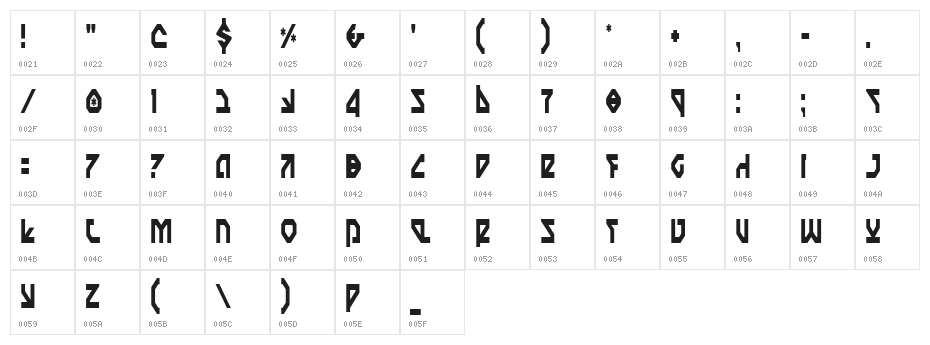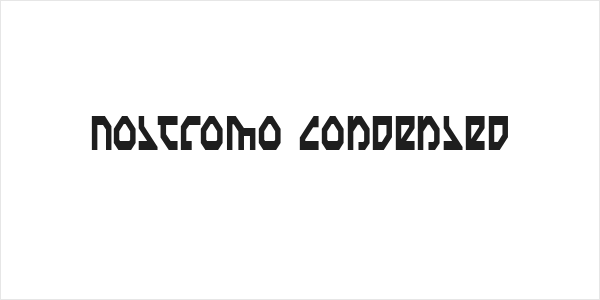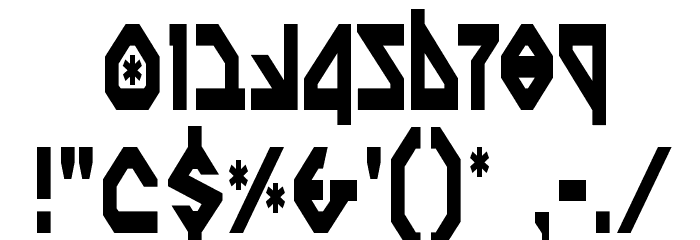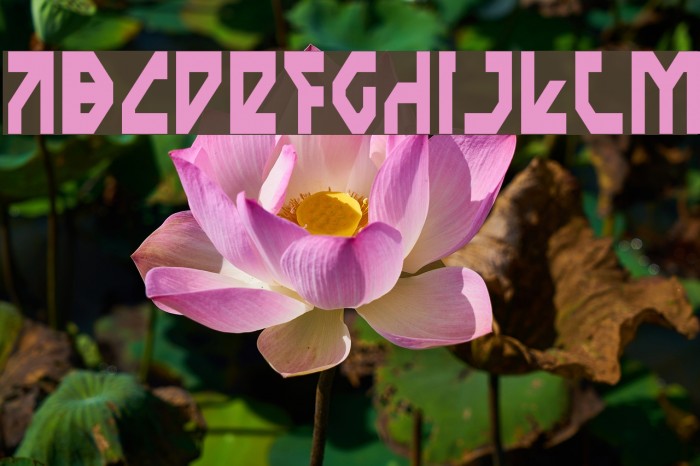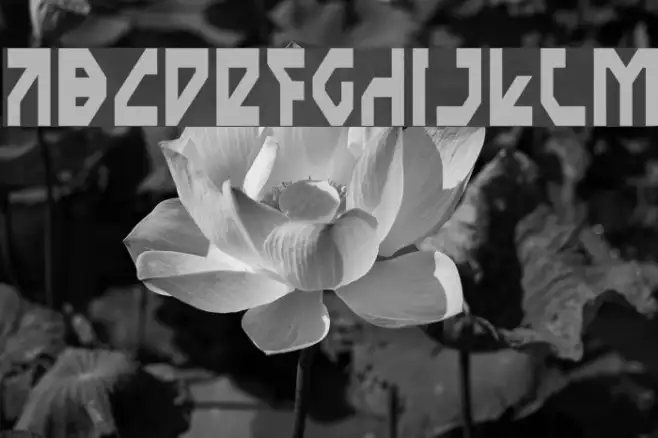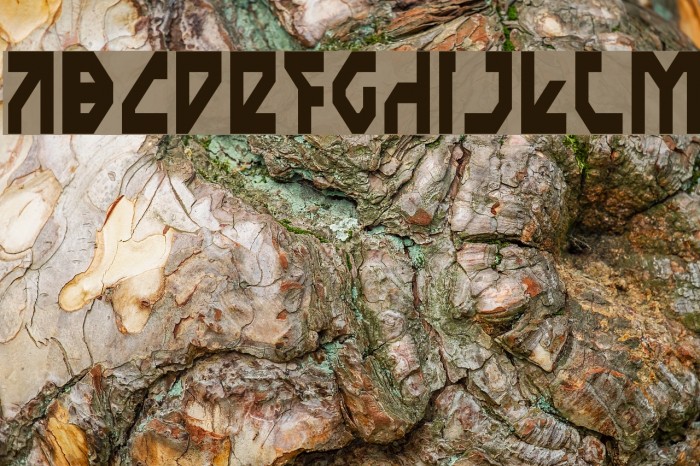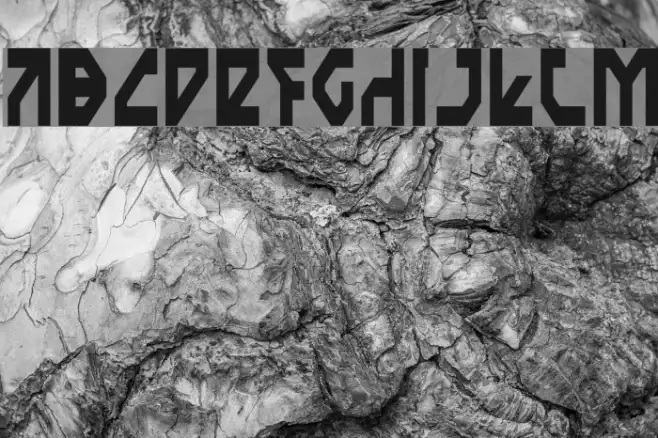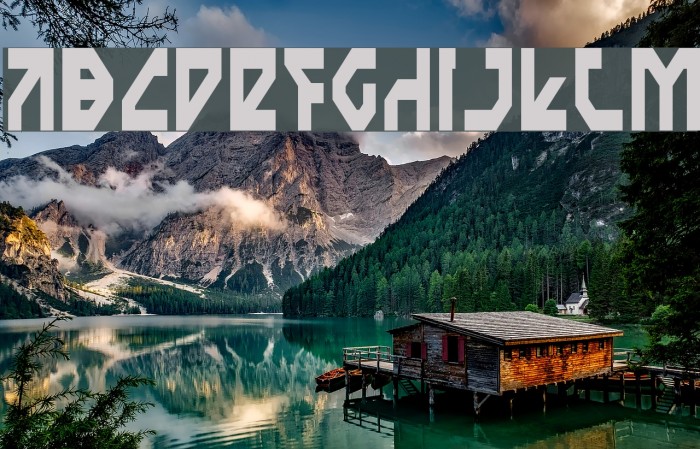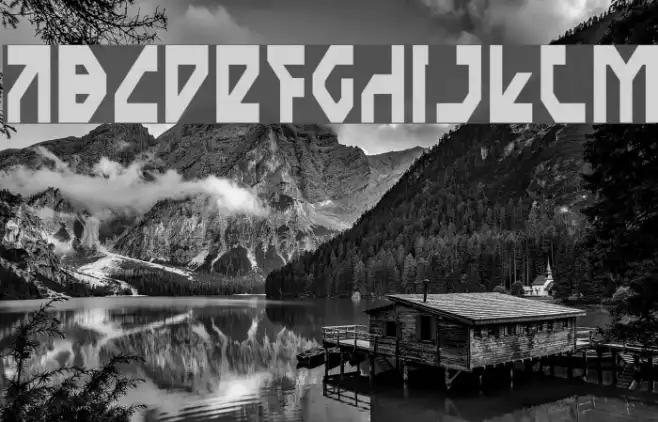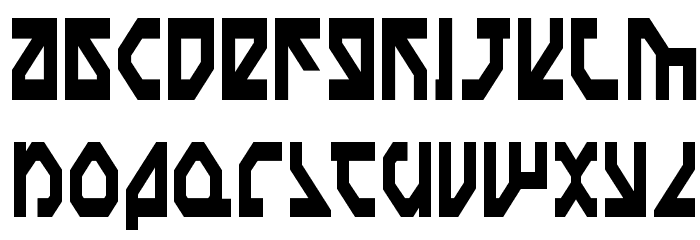
Nostromo Condensed Font
Nostromo Condensed Description
This font features a futuristic and geometric design with bold, angular shapes. The characters are constructed with sharp edges and a condensed form, giving it a distinct and modern appearance. The uppercase and lowercase letters maintain a consistent style, with a strong emphasis on symmetry and alignment. Numbers and special characters follow the same design principles, ensuring uniformity across all glyphs. The font's unique style makes it ideal for projects that require a cutting-edge and tech-inspired look.
| Proposed Projects | Ideal for sci-fi themed designs, technology branding, video game interfaces, and modern posters. |